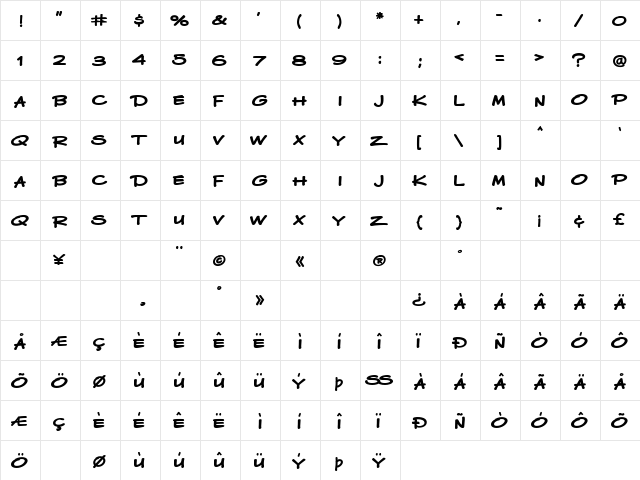
LHF Basher BOLD Regular
Design Context for LHF Basher BOLD Typeface
LHF Basher BOLD is a composed and adaptable typeface that performs quietly and consistently across a wide range of design contexts. Its bold stroke weight gives it real presence on the page.